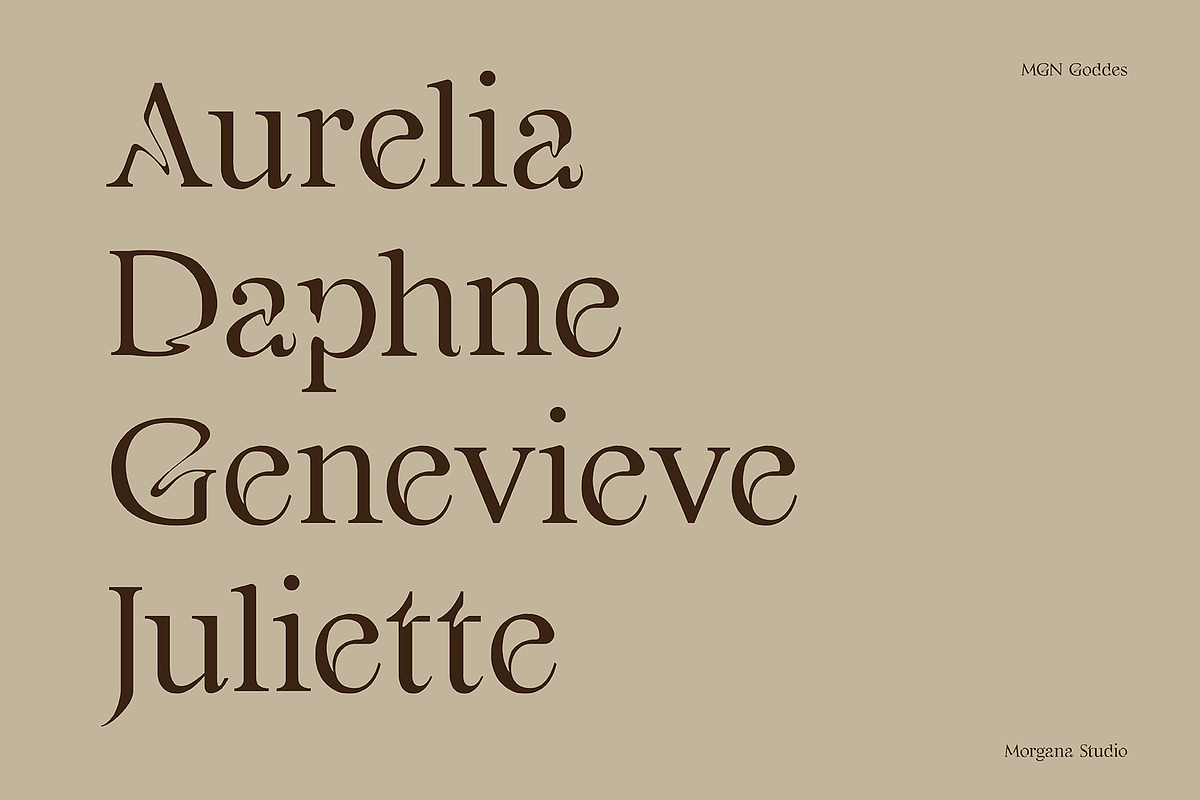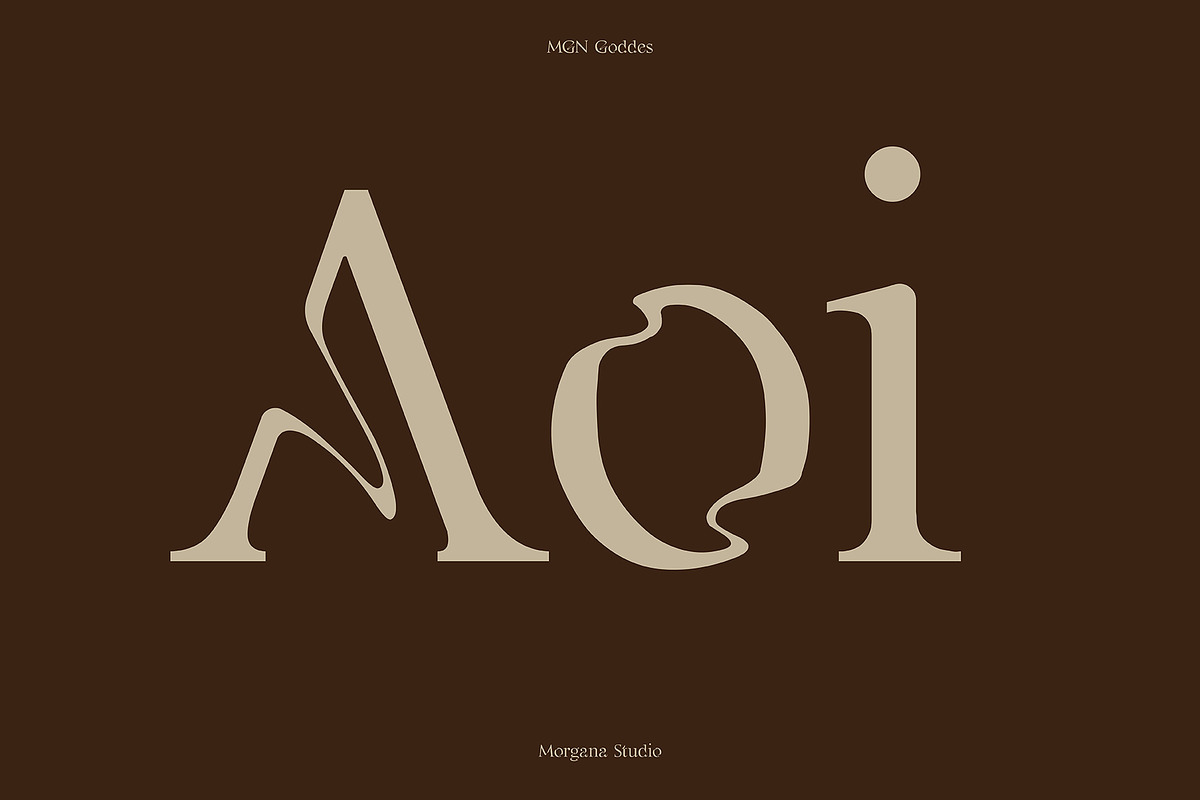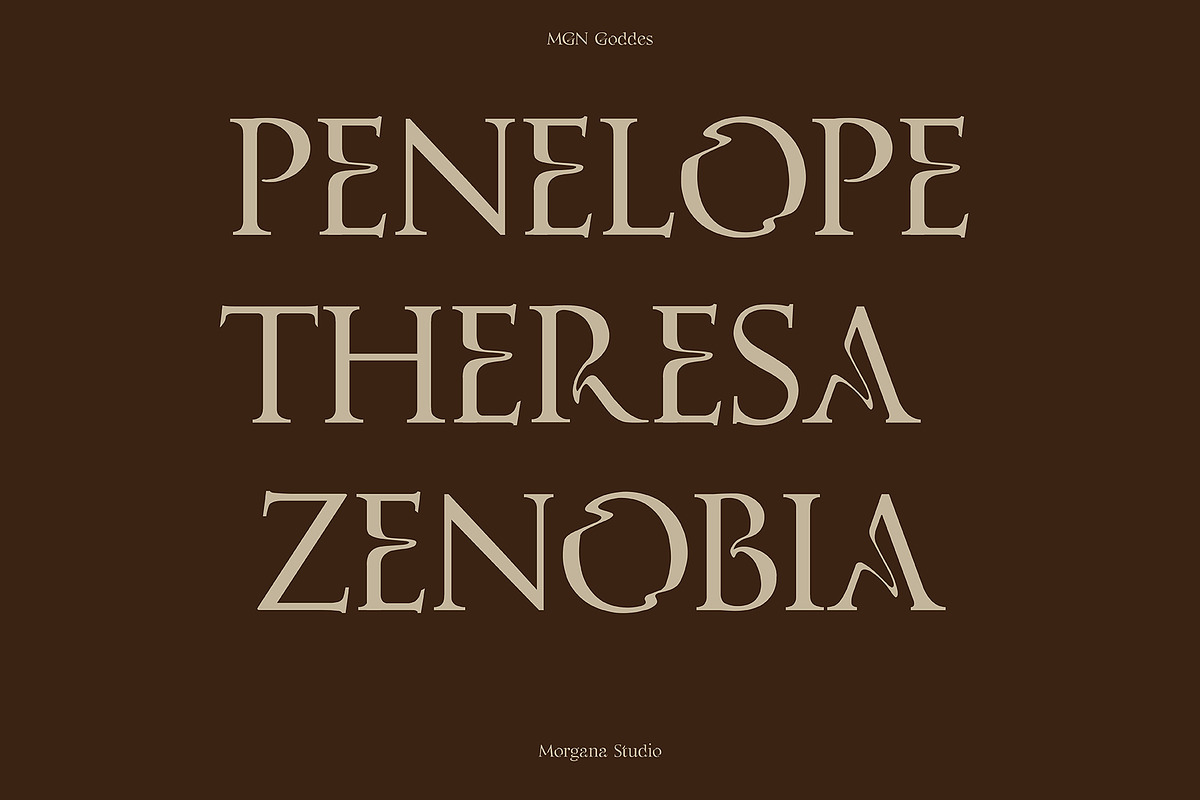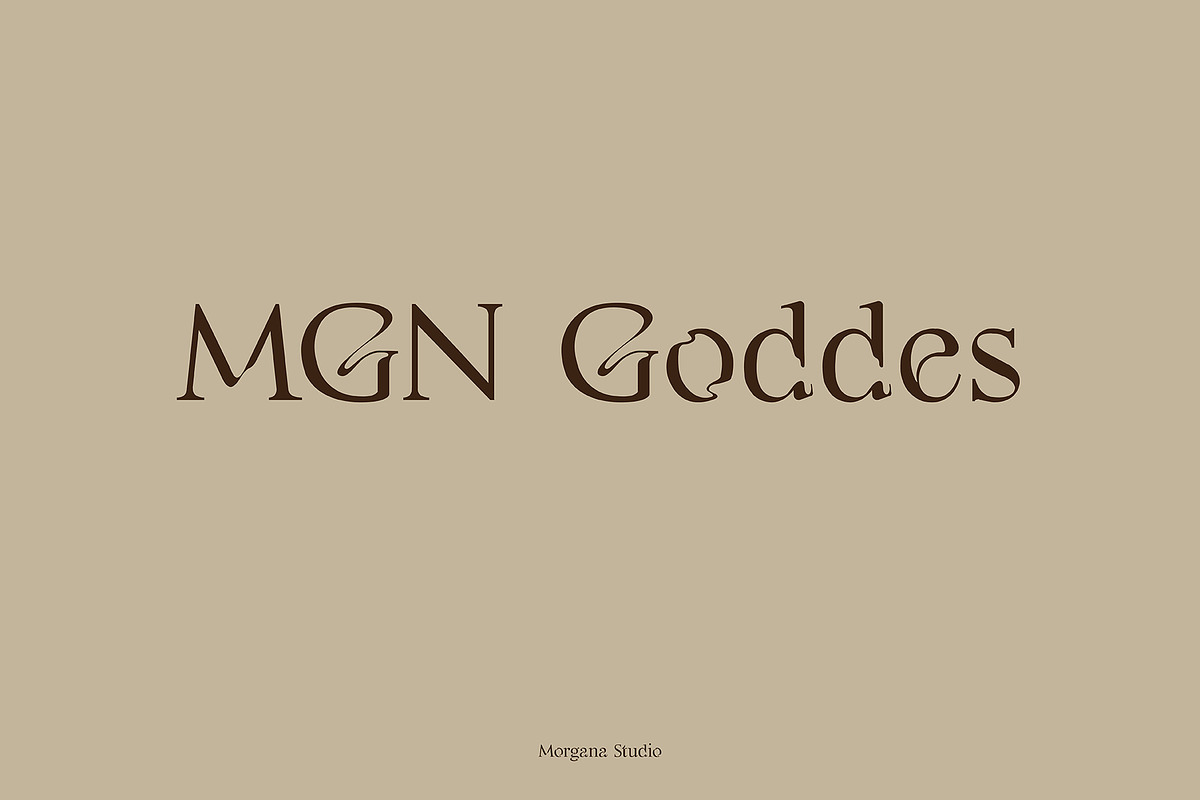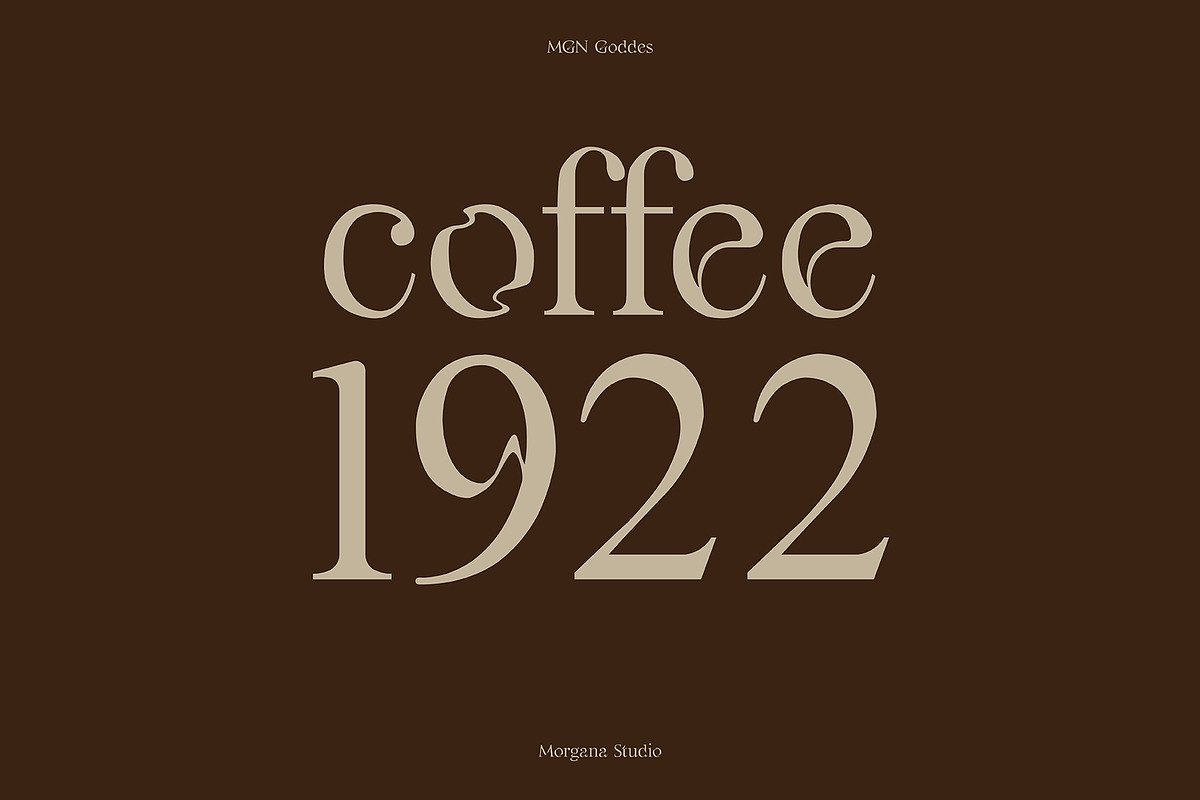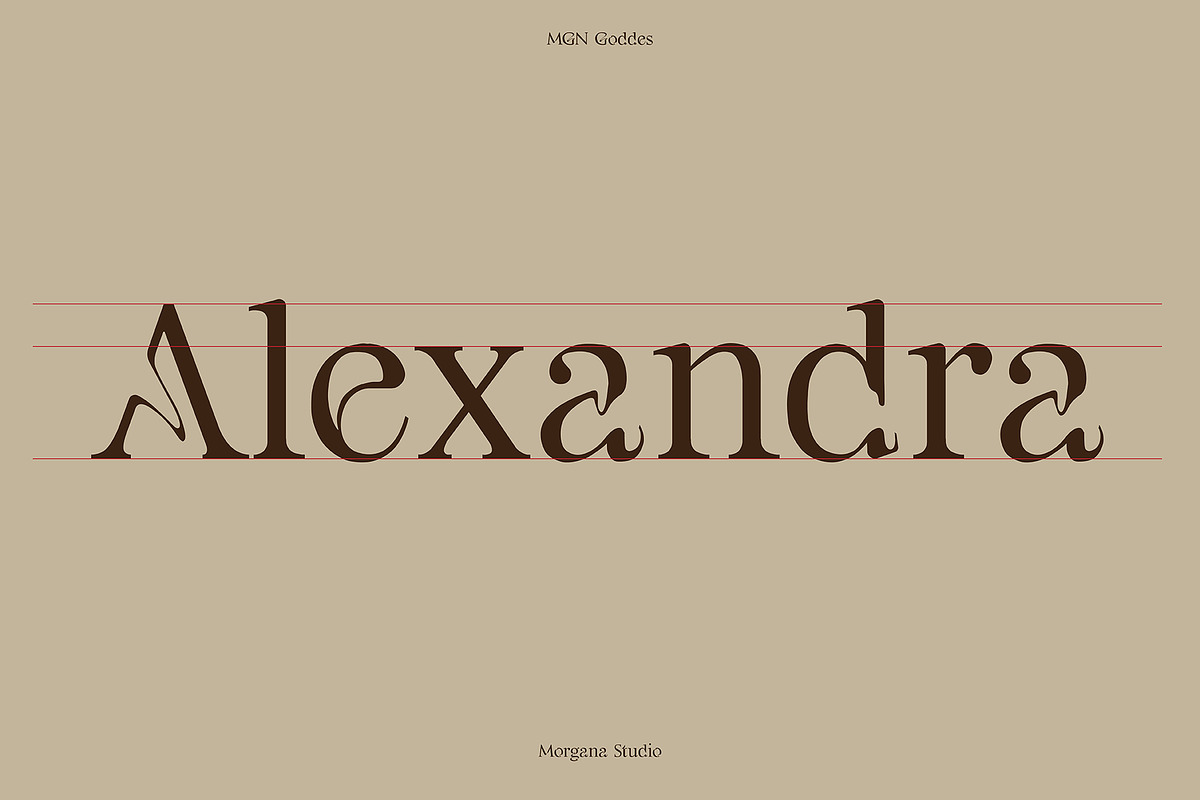
MGN Goddes
MGN Goddess is a serif typeface released in 2022. The liquified lines in several characters of Goddes create an exquisite, unworldly touch. To magnify its beauty, the typeface has a dissolving lobe and tapering spurs that stand out among the others.
The overall feminine and exclusive impressions of the font delivers are closely related to Parisian nuances. Therefore, this magical typeface is suitable for use for posters, logos, and headlines, especially for fashion and beauty products.